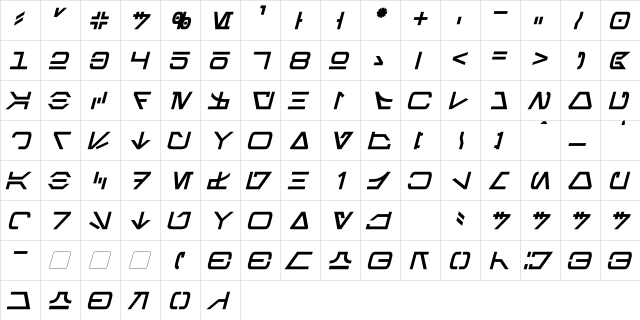
Aurebesh Bold Italic
Design Context for Aurebesh Typeface
Aurebesh takes a measured approach to typography — its balanced proportions and neutral character make it a reliable workhorse for both digital and print work. The dynamic lean of this cut emphasises speed and emphasis in any layout. Its bold stroke weight gives it real presence on the page.
Pro Tip: Use Aurebesh for emphasis, pull quotes, and subheadings where its slanted energy can add rhythm to the layout.